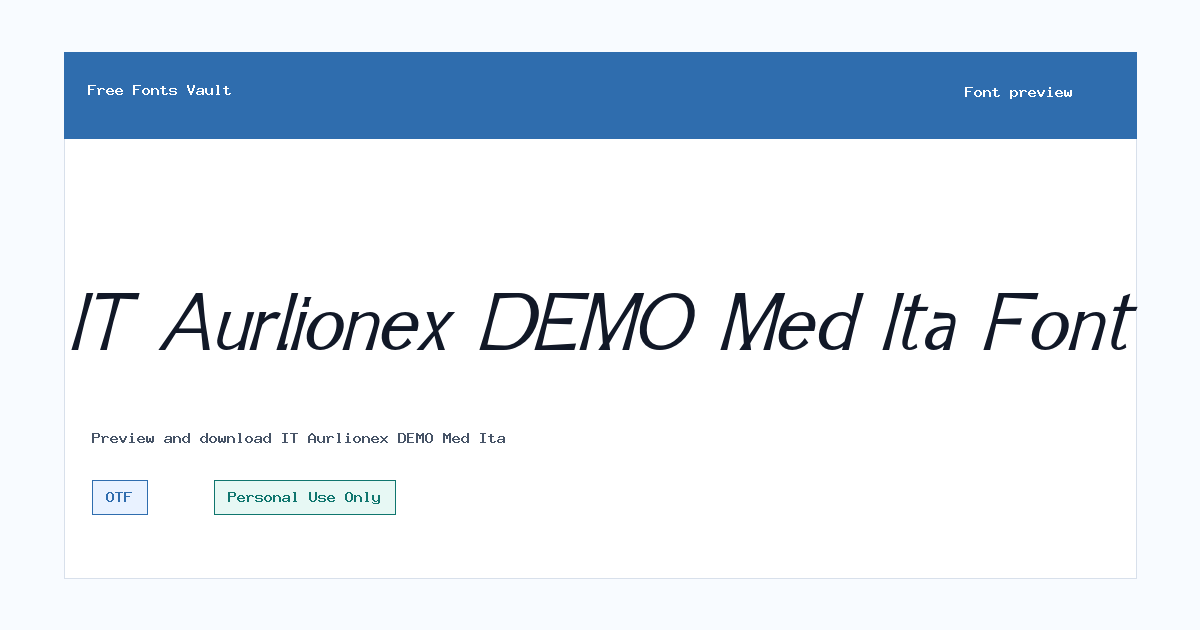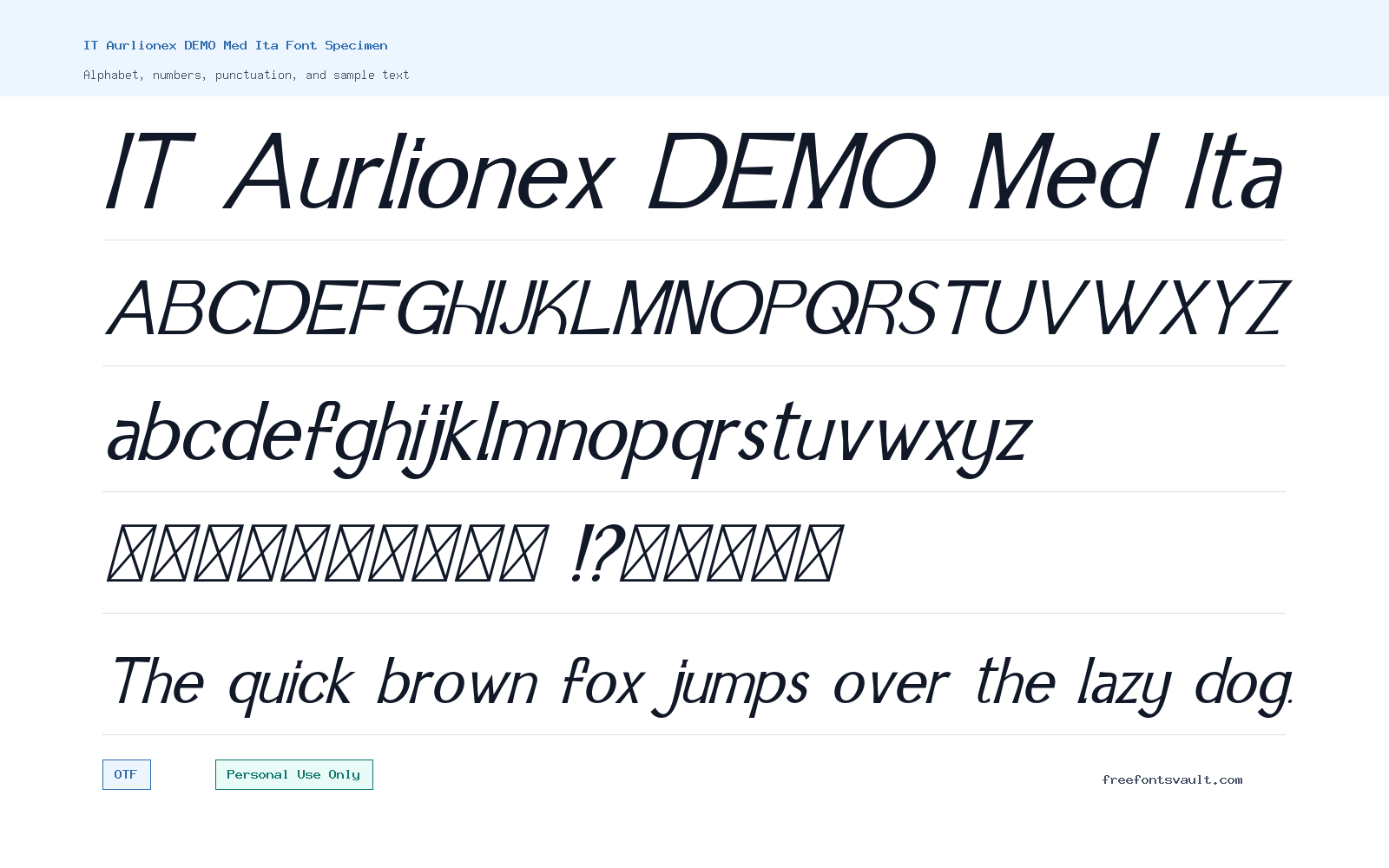
IT Aurlionex DEMO Med Ita
IT Aurlionex DEMO Med Ita Font
• Designer Indotype Foundry
• Foundry Indotype Foundry
IT Aurlionex DEMO Med Ita is a medium italic demo font from Indotype Foundry. It is best approached as a personal-use typeface for testing slanted sans serif styling in titles, mockups, posters, and short display text.
About IT Aurlionex DEMO Med Ita
IT Aurlionex DEMO Med Ita is part of the Aurlionex Sans Serif font family naming, with this download representing the Medium Italic style. The file is an OTF font, which makes it easy to install and test in common design apps. Its 500 weight gives it more presence than a light italic, while the italic style adds movement and emphasis. That combination can work well when you need text that feels active without becoming too heavy. Since this is a demo font, treat it as a preview style for personal projects and evaluation rather than a full production family.
Use the preview area to test the exact words you plan to set. Italic fonts can look very different depending on letter combinations, spacing, and size. Try your brand name, poster title, website headline, social graphic text, or short quote before downloading. A medium italic sans serif can be useful for subtitles, callouts, editorial accents, packaging concepts, and web mockups where the type needs a forward lean. For logo work, test it carefully at both large and small sizes. The slant may add personality, but it can also make dense lettering feel tighter, especially in all caps or long names.
For posters and social media artwork, IT Aurlionex DEMO Med Ita is better suited to short phrases than body copy. Keep line lengths short, add enough spacing around the text, and avoid stacking many italic lines together. If you are building a layout with multiple typefaces, pair this font with a calmer upright sans serif or a simple serif for contrast. Let the italic style handle emphasis while the companion font carries longer reading. This keeps the design balanced and helps visitors read the message quickly.
In web mockups, use this font to test navigation accents, hero text, buttons, pull quotes, or small campaign phrases. It may not be the best choice for long paragraphs because italic text usually takes more effort to read over time. If you are exploring a brand direction, compare it against an upright font and check how it behaves on mobile widths. Pay attention to spacing, punctuation, numbers, and mixed-case words. Those practical checks matter more than judging the font from a sample word alone.
• Medium italic style with a 500 font weight for stronger emphasis than a light italic
• Sans serif family naming, useful for modern display layouts and clean mockup work
• Suitable for short text treatments such as headlines, callouts, posters, and concept logos
• Personal-use poster titles and social media graphics
• Logo concept testing and brand direction mockups
• Website hero text, buttons, and editorial accents in design drafts
• Packaging concepts, presentation covers, and short promotional phrases
• Typography experiments where a medium-weight italic sans serif is needed
What style is this font?
This style is Medium Italic, with a listed font weight of 500.
Who designed IT Aurlionex DEMO Med Ita?
The designer and foundry are listed as Indotype Foundry.
Is this a good font for body text?
It is better for short display text, accents, and mockups. Italic styles can become harder to read in long paragraphs.
What should I pair it with?
Pair it with a simple upright sans serif or a readable serif. Use IT Aurlionex DEMO Med Ita for emphasis, then let the companion font handle longer text.